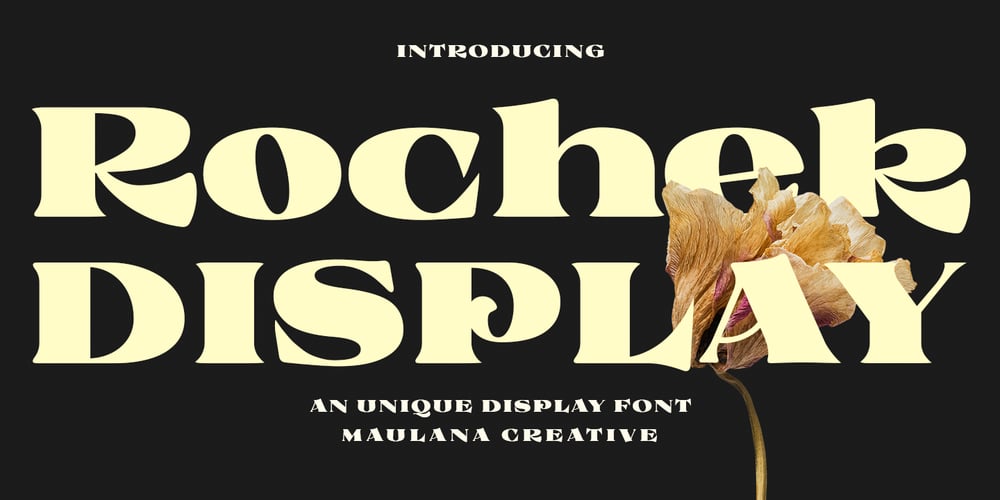
Rochek Display Font Family was designed by Gilang Maulana and published by Maulana Creative. Rochek Display contains 1 styles and family package options. Rochek is a fancy Display serif font. With bold expanded stroke, fun character with a bit of ligatures and alternates. To give you an extra creative work. Rochek font support multilingual more than 100+ language. This font is good for logo design, Social media, Movie Titles, Books Titles, a short text even a long text letter and good for your secondary text font with sans or serif. Make a stunning work with Rochek font. Cheers, MaulanaCreative